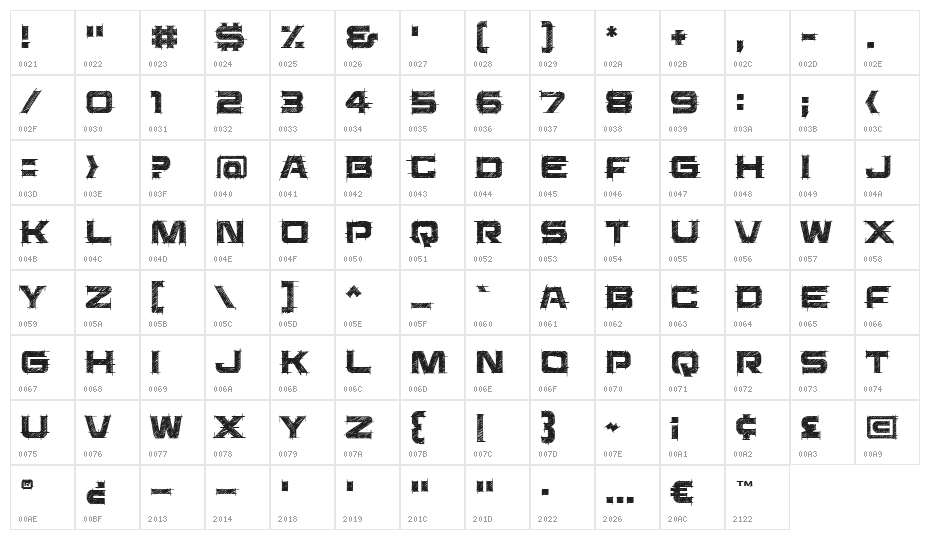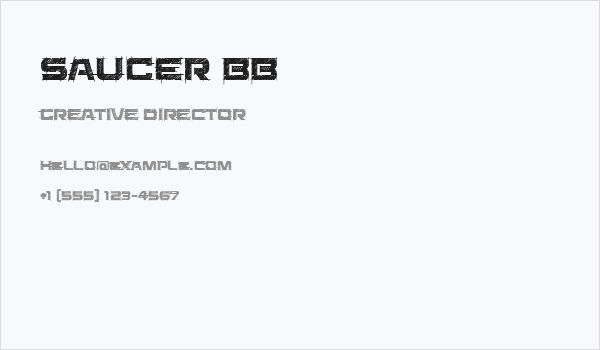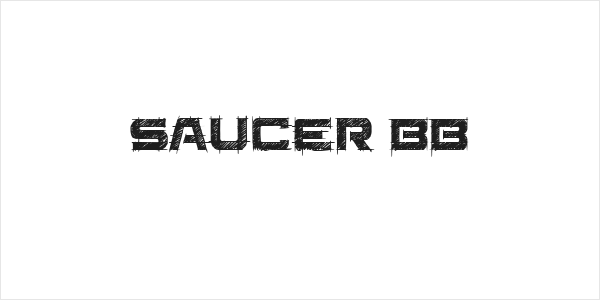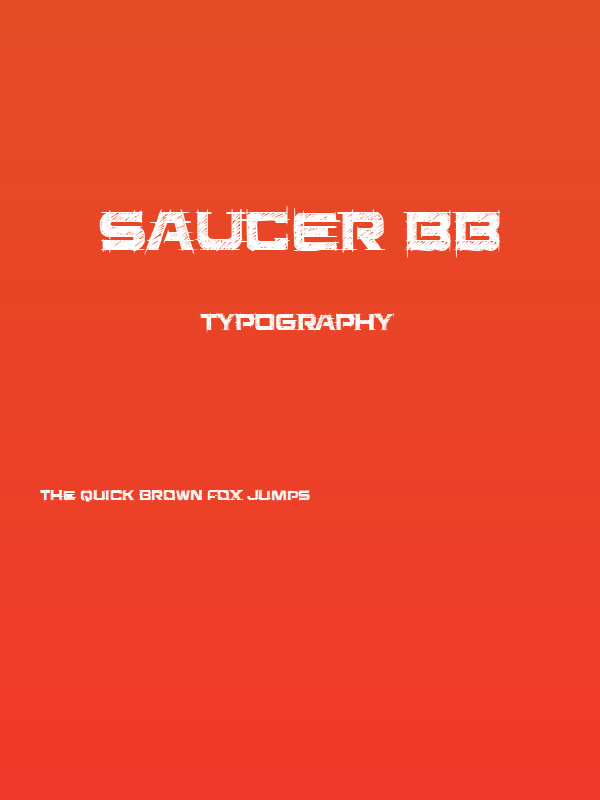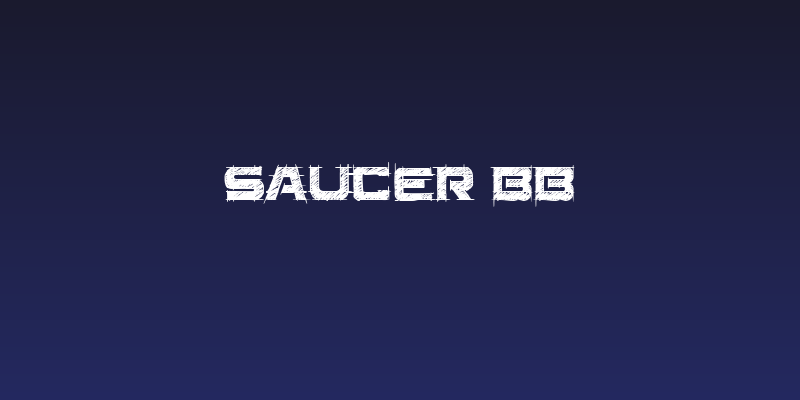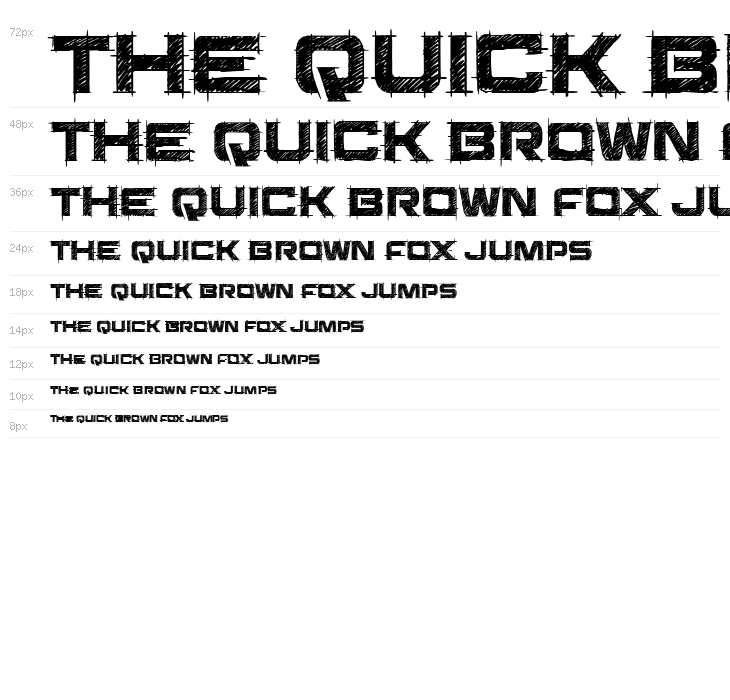
Saucer BB Font
Saucer BB Description
This font features a bold, edgy design with a distressed, grunge-like texture that gives it a unique and rugged appearance. The characters are angular and geometric, with sharp edges and a slightly condensed form. The texture within each letter resembles scratches or hatching, adding depth and a sense of movement. This style is reminiscent of urban or industrial themes, making it stand out in any design. The uppercase and lowercase letters maintain consistency in style, while the numerals and special characters complement the overall aesthetic, ensuring versatility in various applications.
| Overall Style | Urban, Industrial, Grunge |
| Proposed Projects | Ideal for album covers, posters, streetwear branding, or any project needing an edgy, urban vibe. |